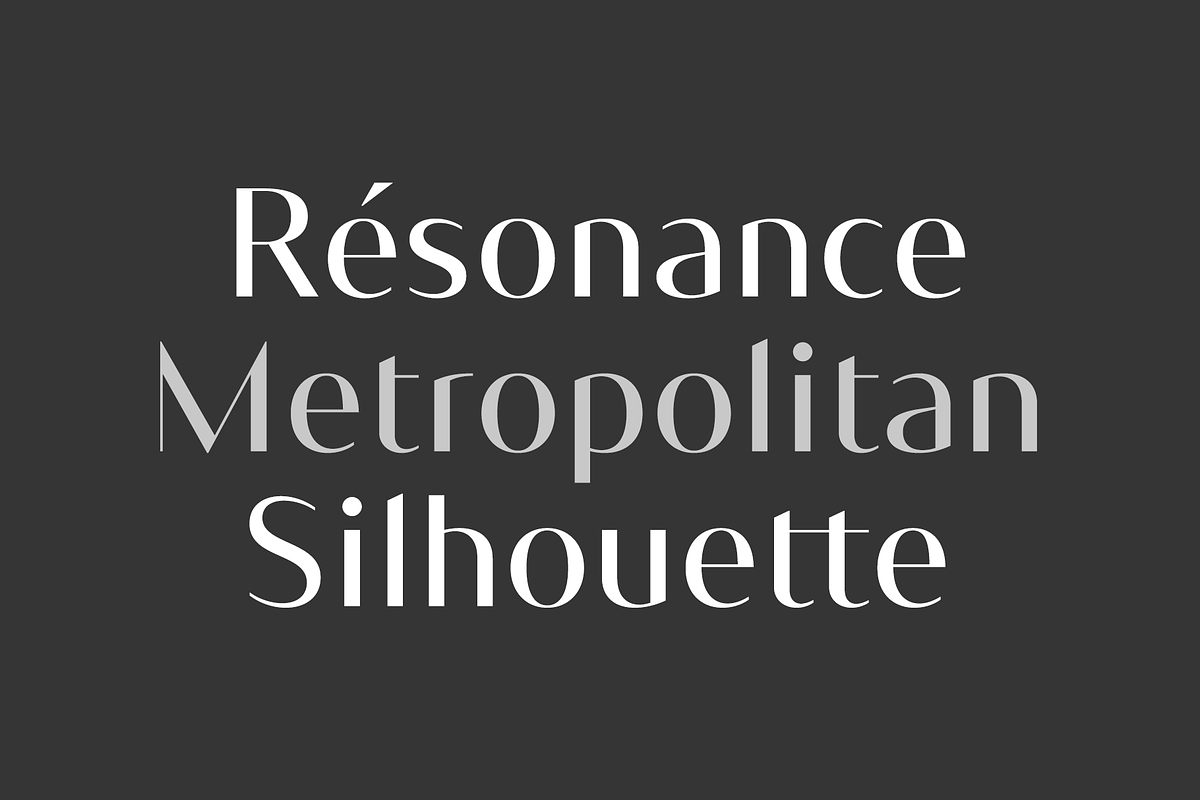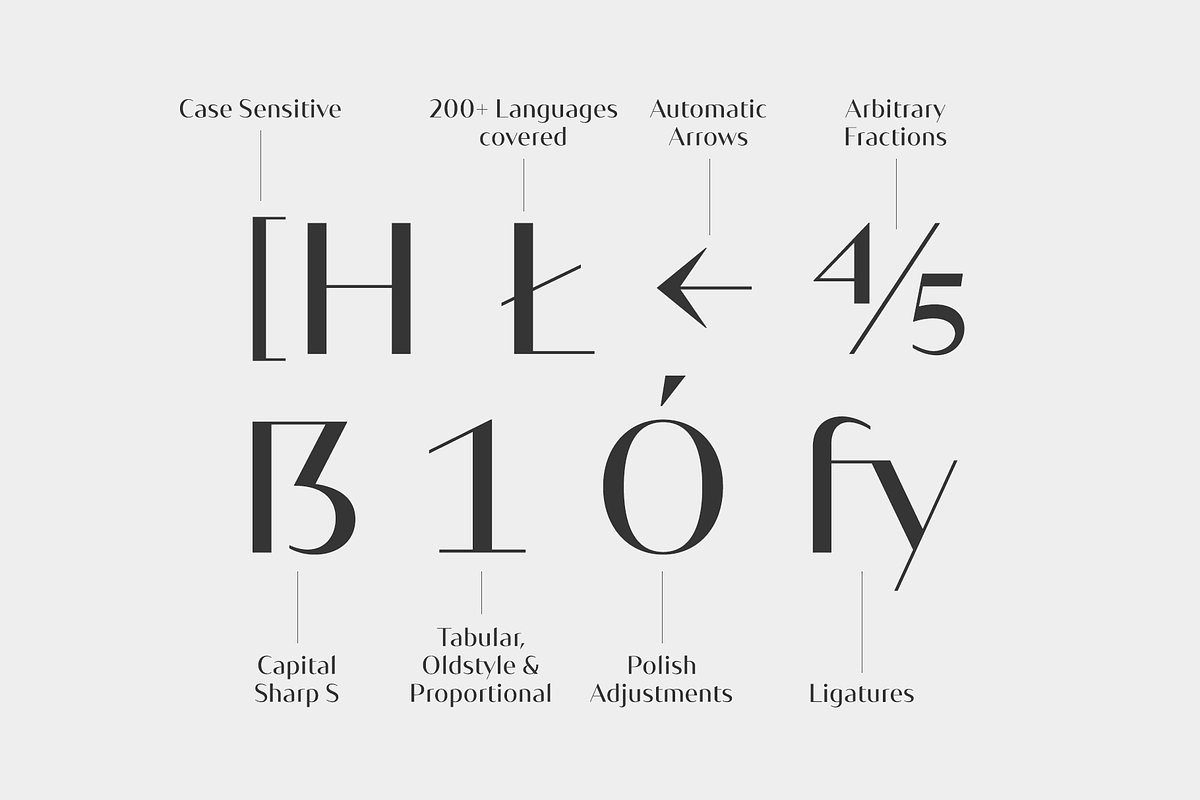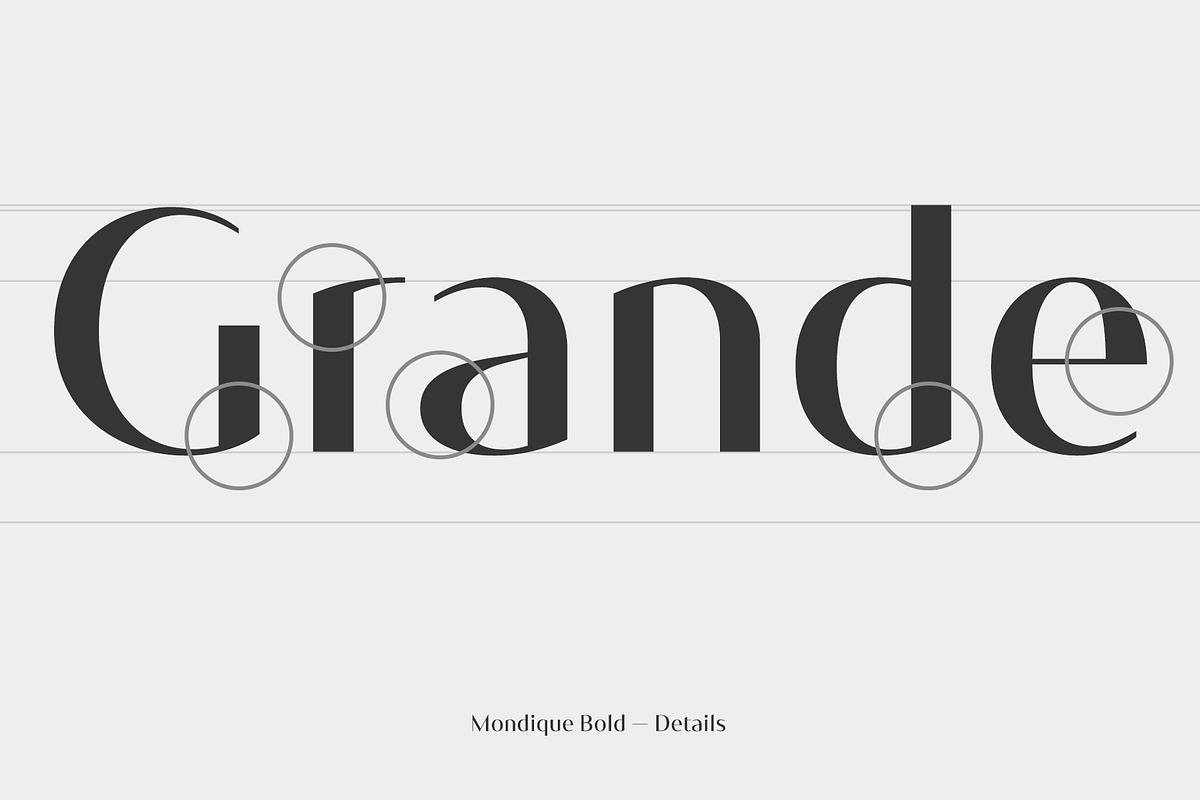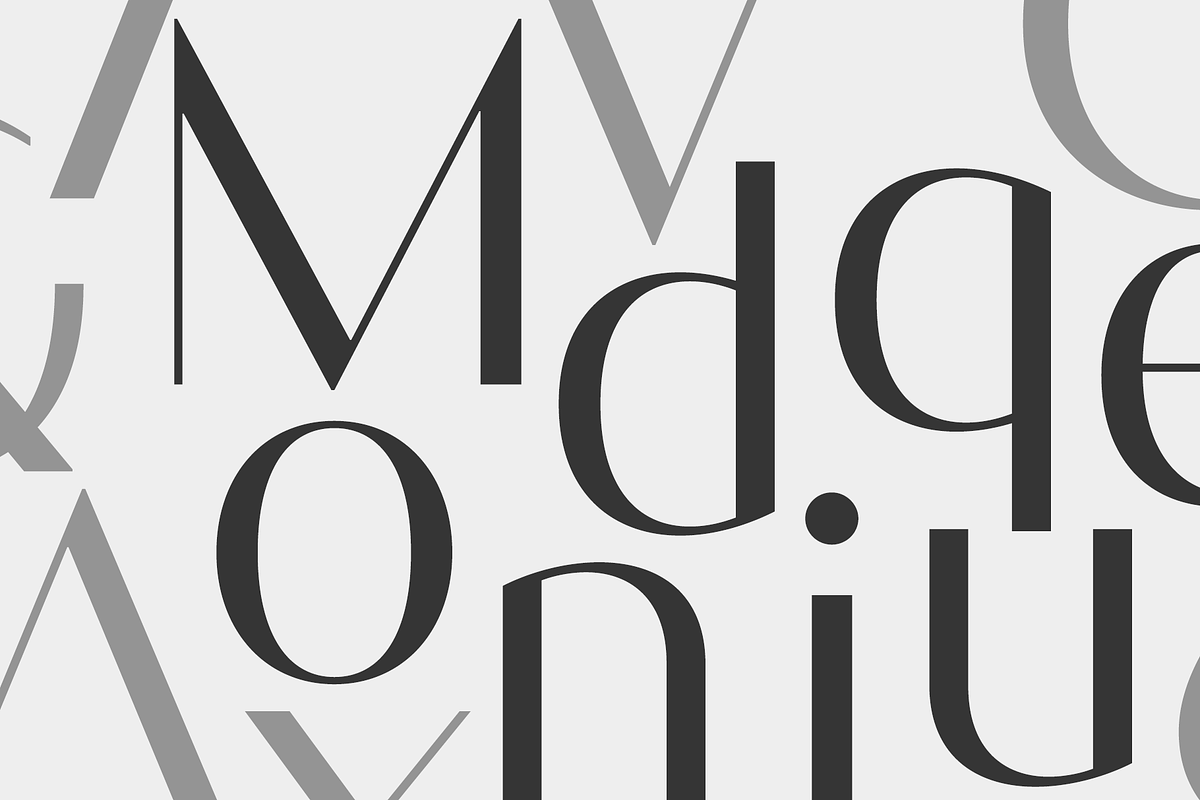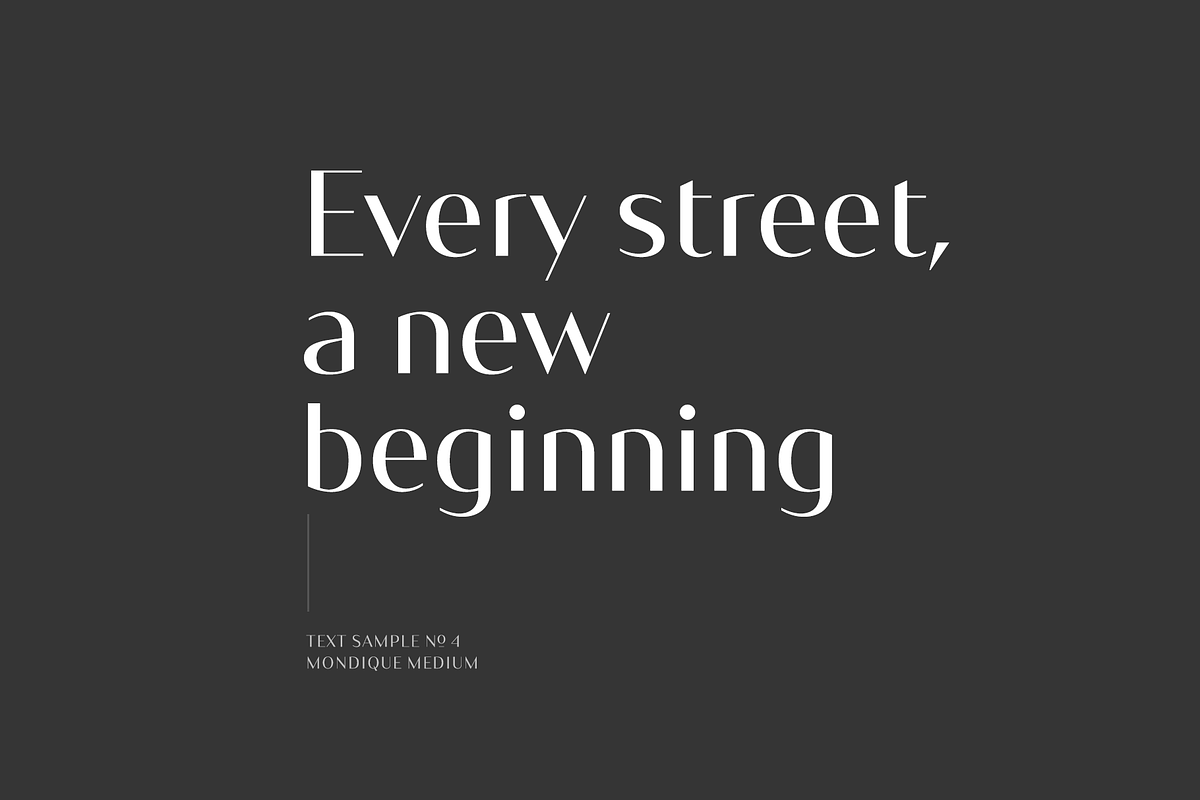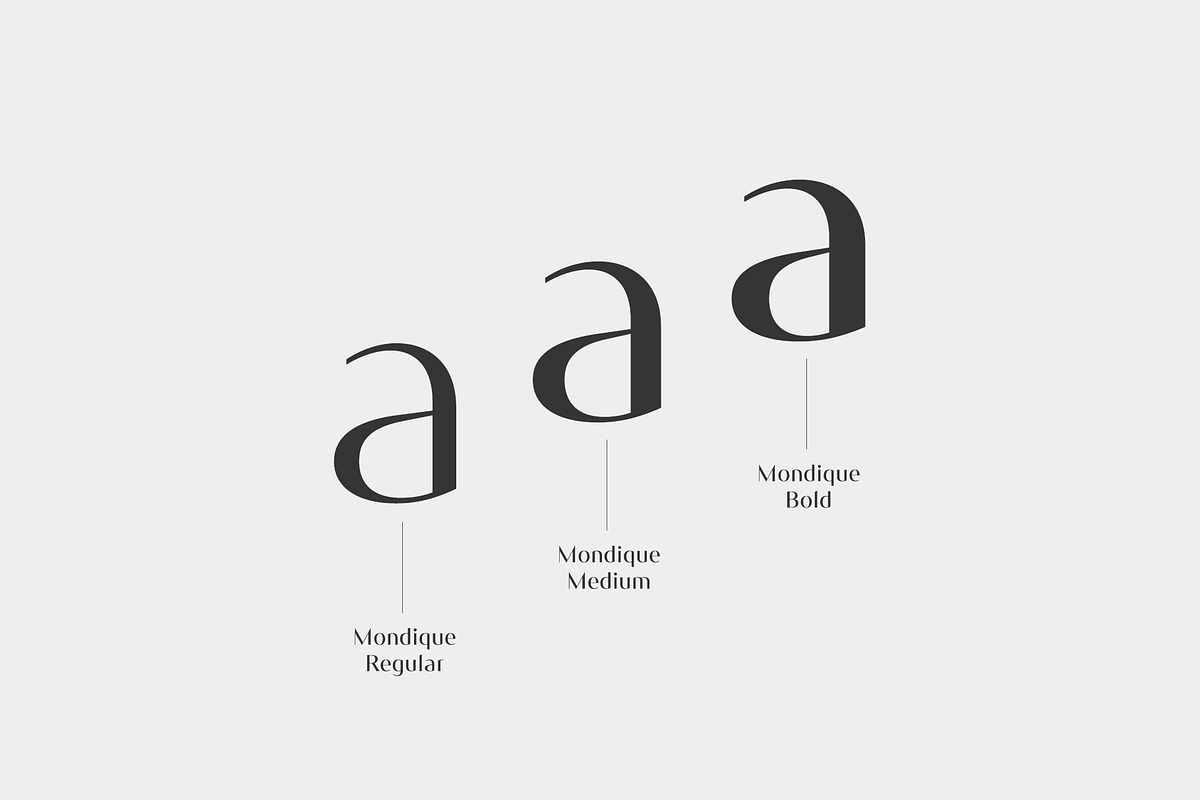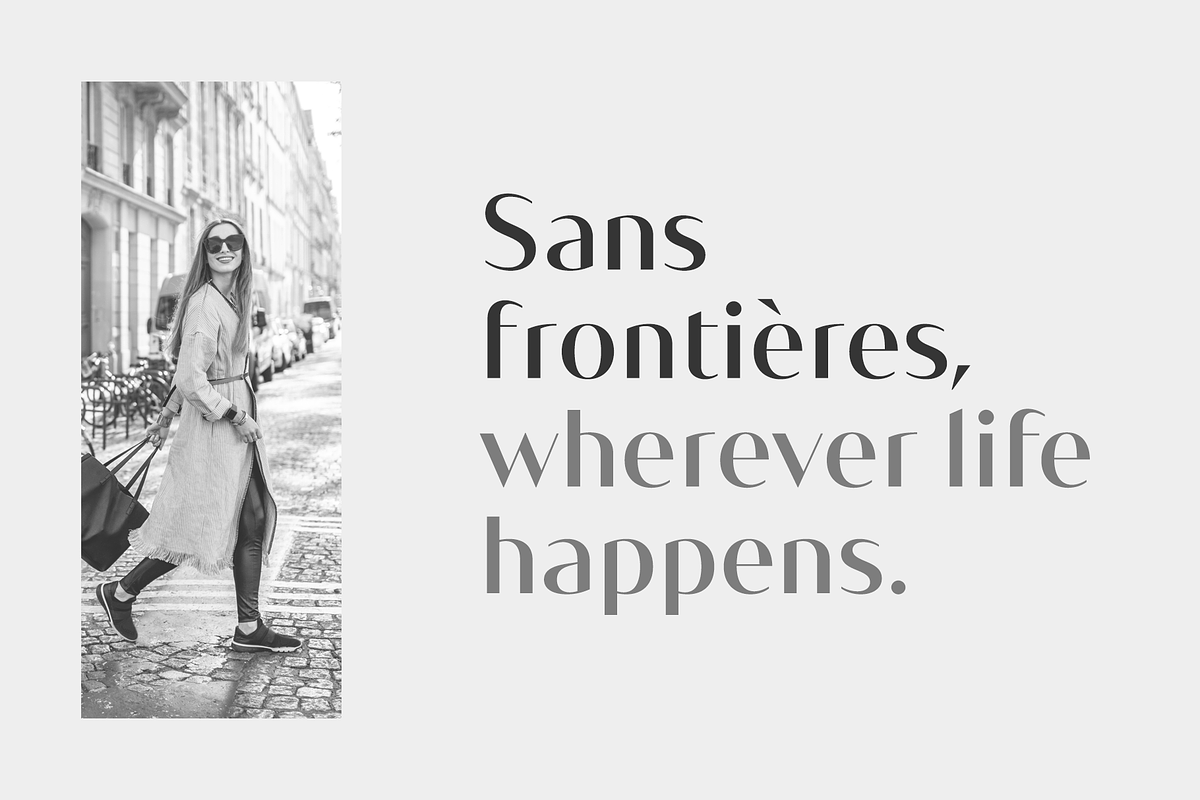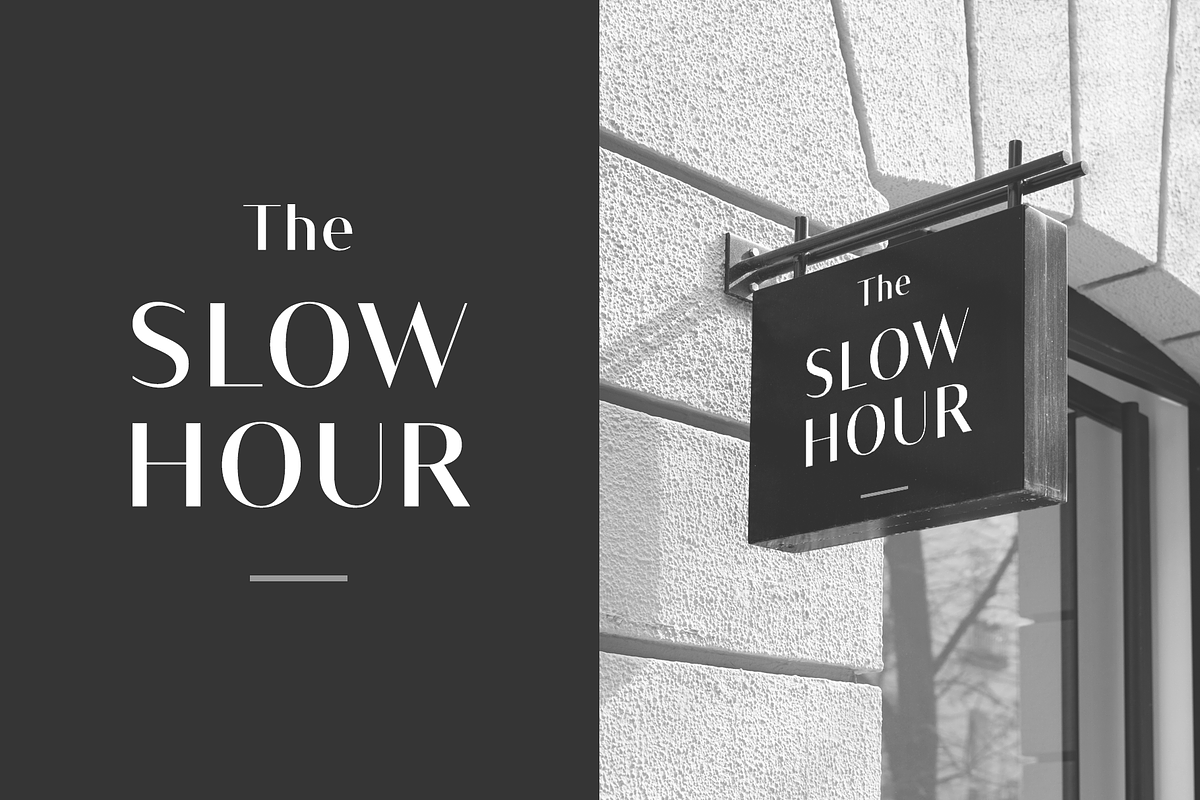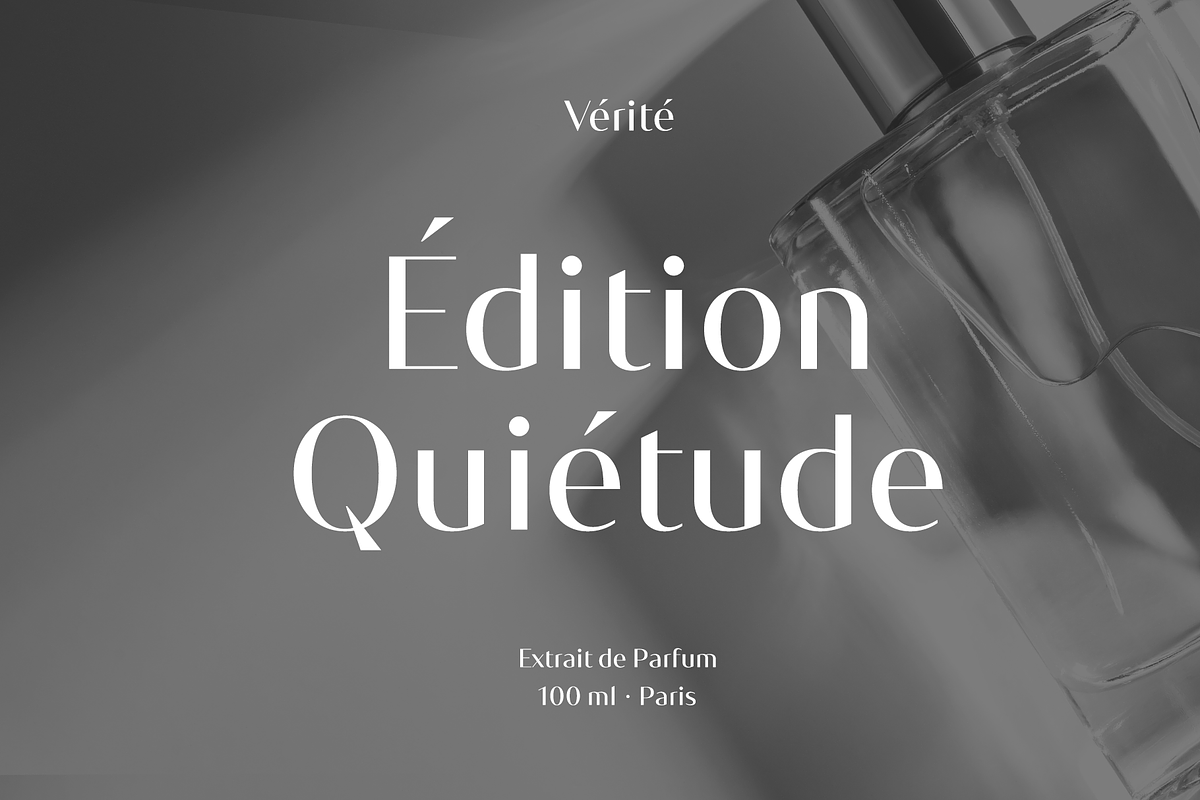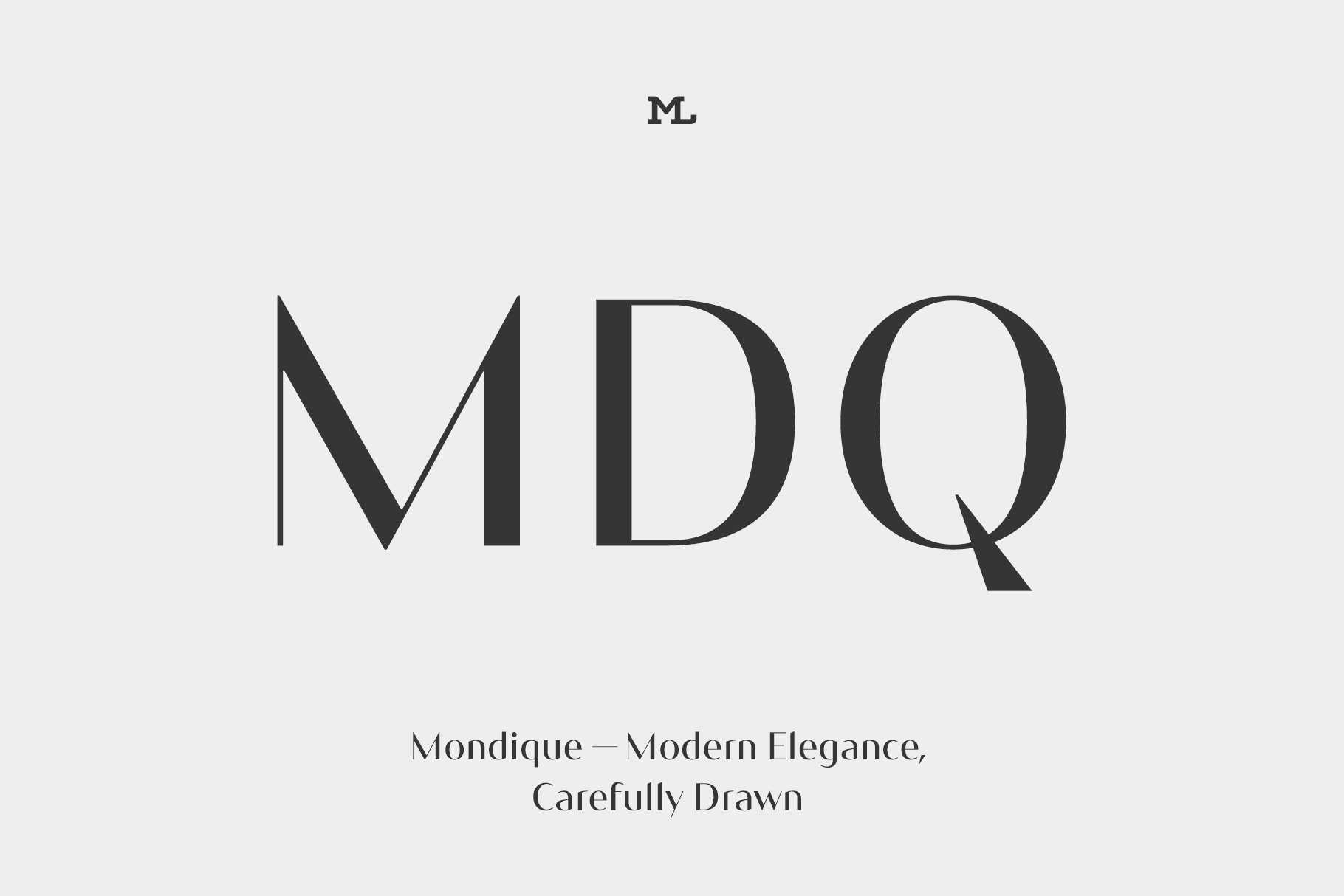
Mondique – Elegant Font Family
Mondique is a sans serif family whose high contrast evokes timeless elegance, while its minimalist, modern, and spurless design lends it a distinctly contemporary aesthetic. Sharp terminals and carefully drawn curves create a distinctive rhythm – refined and expressive without excess, balancing a strong visual presence with a calm, sophisticated character. Equally at home in luxury branding, editorial design, packaging, fashion, and premium digital experiences, Mondique brings a polished and confident voice to every application.
3 weights
611 glyphs per weight
200+ languages covered
stylistic alternates
ligatures
many numerical variations
arbitrary fractions
automatic arrows
and more!